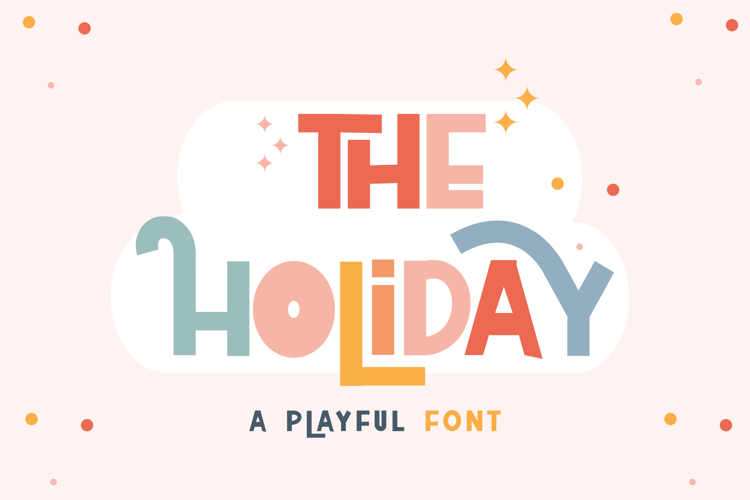
THE HOLIDAY Font
About THE HOLIDAY Font
The Holiday is a cool, bold and thick lettered display font. It is PUA encoded which means you can access all of the amazing glyphs and ligatures with ease!
Use this font for your designs and explore its endless possibilities.